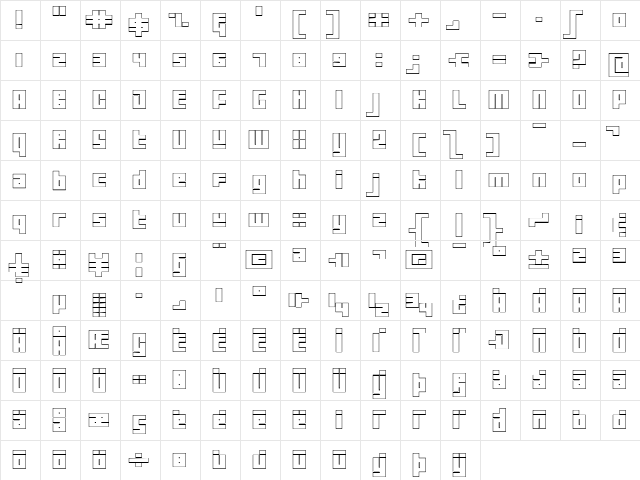
Tutor Outline Regular
| Foundry | studio Kmzero |
| Designer | Francesco Canovaro |
Design Context for Tutor Outline Typeface
Tutor Outline brings ornamental detail and strong personality to headlines and identities, where visual impact matters more than quiet functionality.
Font Pairing: Pair with a clean neutral sans-serif for body copy to let Tutor Outline's character lead without overwhelming the composition.
Pro Tip: Treat Tutor Outline as the centrepiece of your typographic hierarchy. One strong heading set in a decorative face can carry an entire layout.